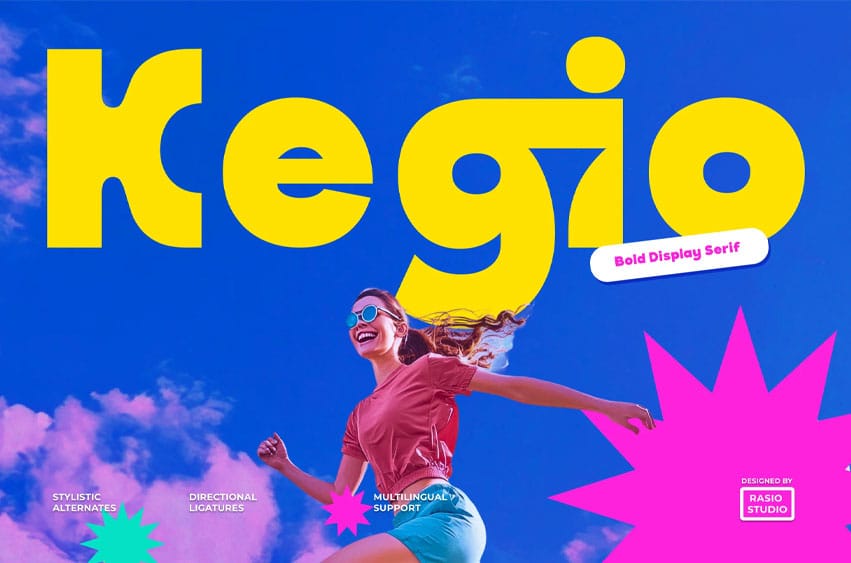
Kegio Font is a bold display sans-serif font that combines geometric structure with playful energy. Its strong shapes and rounded alternates bring a friendly yet powerful aesthetic, ideal for vibrant design compositions. The typeface balances modernity and fun, giving a fresh voice to bold headlines and creative layouts.
Featuring stylistic alternates, ligature sets, and smooth, rounded corners, Kegio delivers versatility for expressive typography. It includes multilingual and Latin Extended support, ensuring consistent use across global projects.
Relevance and Use Cases is perfect for logo design, poster titles, playful branding, children’s media, packaging design, modern advertising, and digital campaigns that celebrate creativity and color.
Main Features :
- Stylistic Alternates & Ligatures
- Rounded Corner Alternates
- Multilingual & Latin Extended Support
Bring your words to life with Kegio — a bold, geometric sans serif font packed with energy, personality, and modern playfulness.